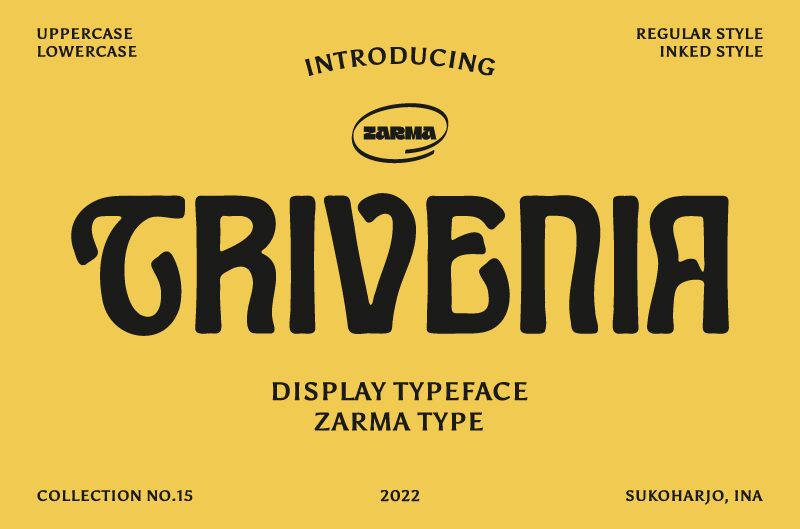
Trivenia, a vintage display font crafted by Zarma Type Foundry, exudes boldness and nostalgia. Its semi-condensed width lends a sleek touch to its timeless appeal. Perfect for bringing retro vibes to your branding projects, Trivenia adds character and charm to logos, packaging designs, and posters. This versatile font type is equally suited for creating eye-catching headlines or captivating social media graphics. Let Trivenia transport your audience to a bygone era while making a lasting impression with its striking and distinctive style. Unleash your creativity with Trivenia's bold vintage aesthetic!
Trivenia